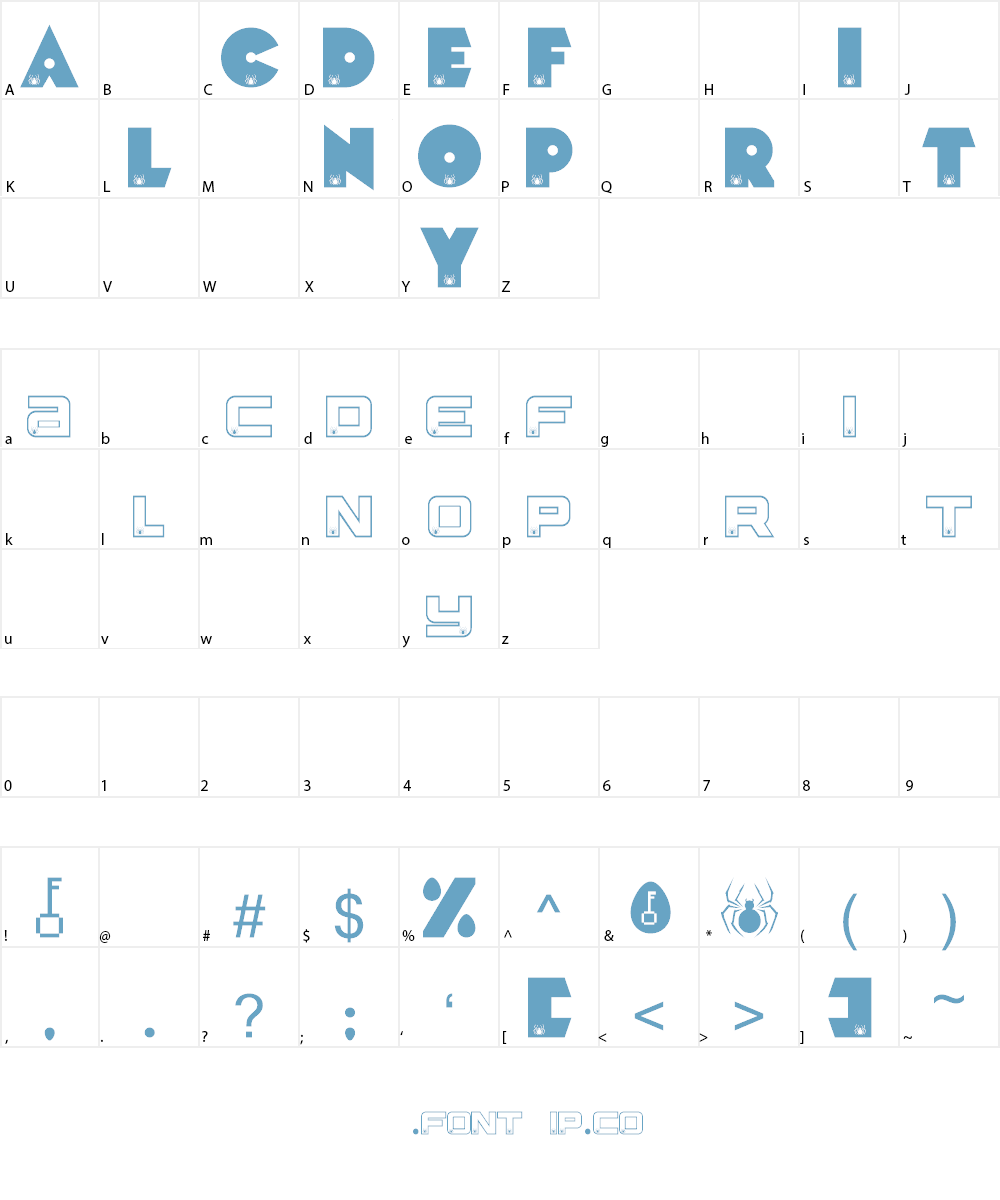
I created this typeface based on the hugely popular book of a similar name that is filled with references to video games, virtual reality, ’80s pop-culture trivia. Go find your keys to unlock your easter egg. This fan-font that also includes my version of the book and movie typefaces with similar bulky wide stems on the capitals and narrow outlined on the lowercase.